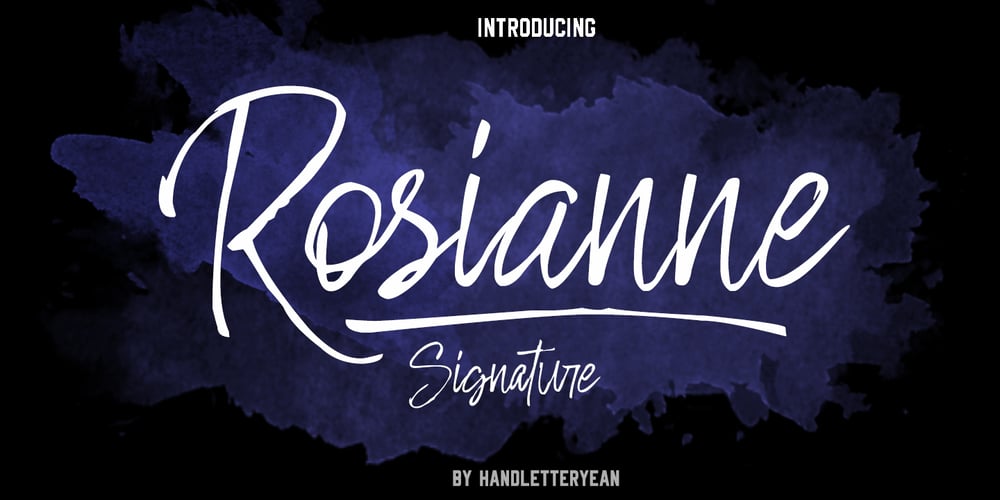
Rosianne
Rosianne font
Rosianne Font Family was designed by Yean Aguste and published by HandletterYean. Rosianne contains 4 styles and family package options. Rosianne is a bold and unique handwritten font with a distorted and classic feel. It will effortlessly turn any creative idea into a stand out.